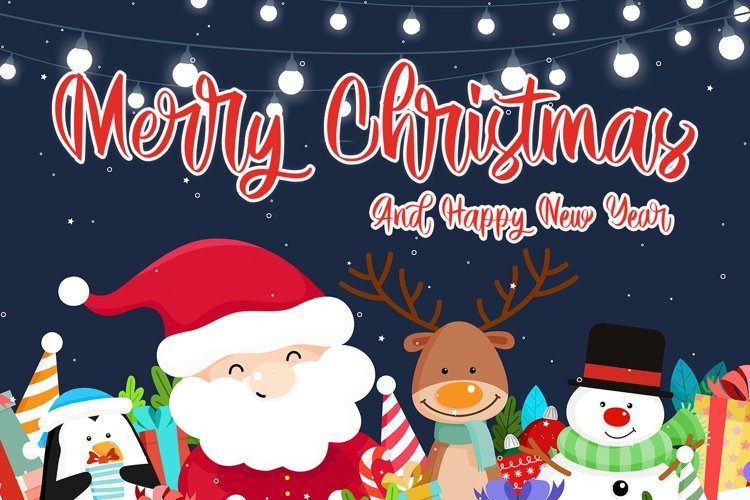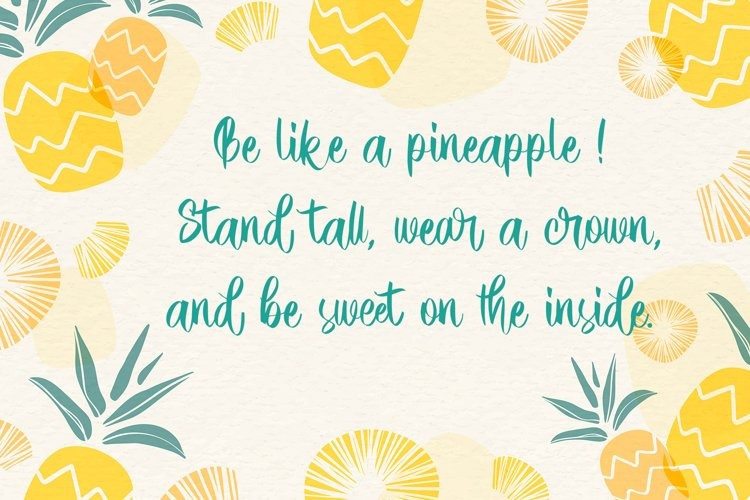
Angeloca Script Font
Introducing our New Fonts, A great collection for your various special projects. Angeloca is a romantic and sweet calligraphy typeface with characters that dance along the baseline. It will add a luxury spark to any design project that you wish to create! This font is PUA encoded which means you can access all of the amazing glyphs and ligatures with ease!